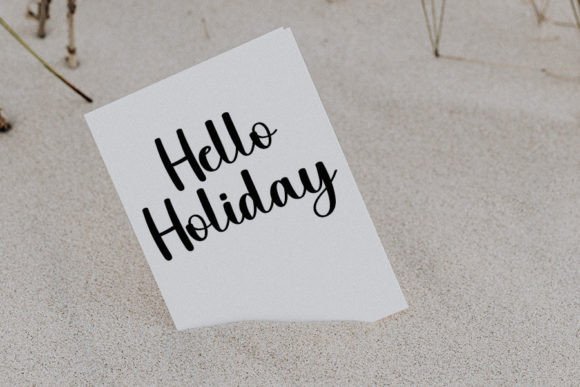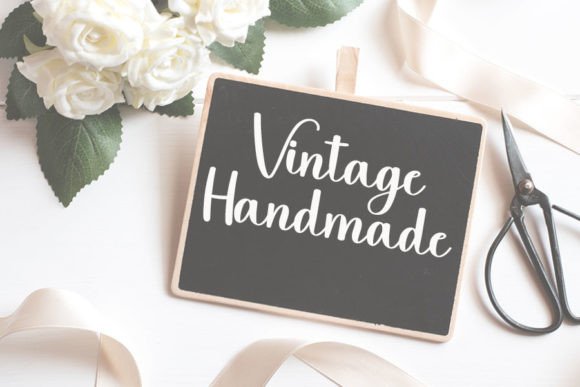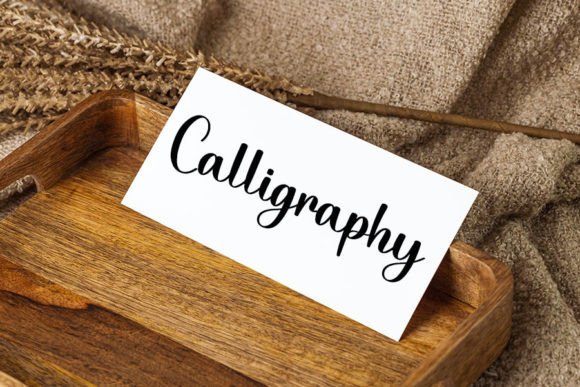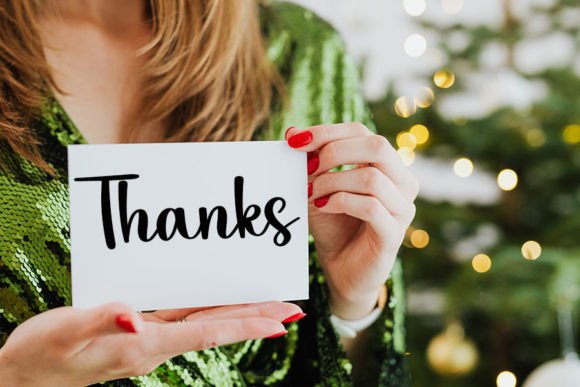
Introduction to Hot Springs Font
Hot Springs is a sweet and beautiful handwritten font.
Featuring characters that dance along the baseline, this font will add a luxury spark to any design project you wish to create .